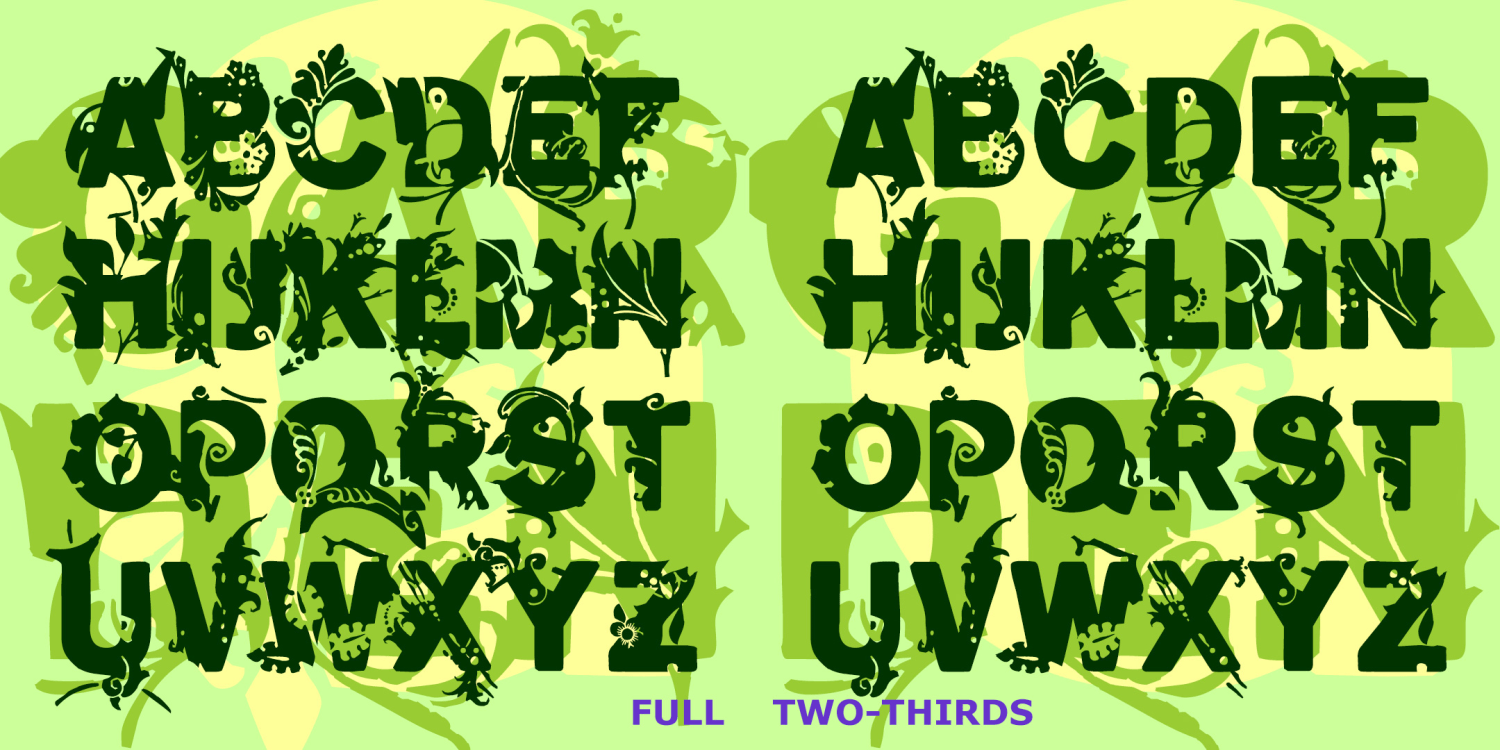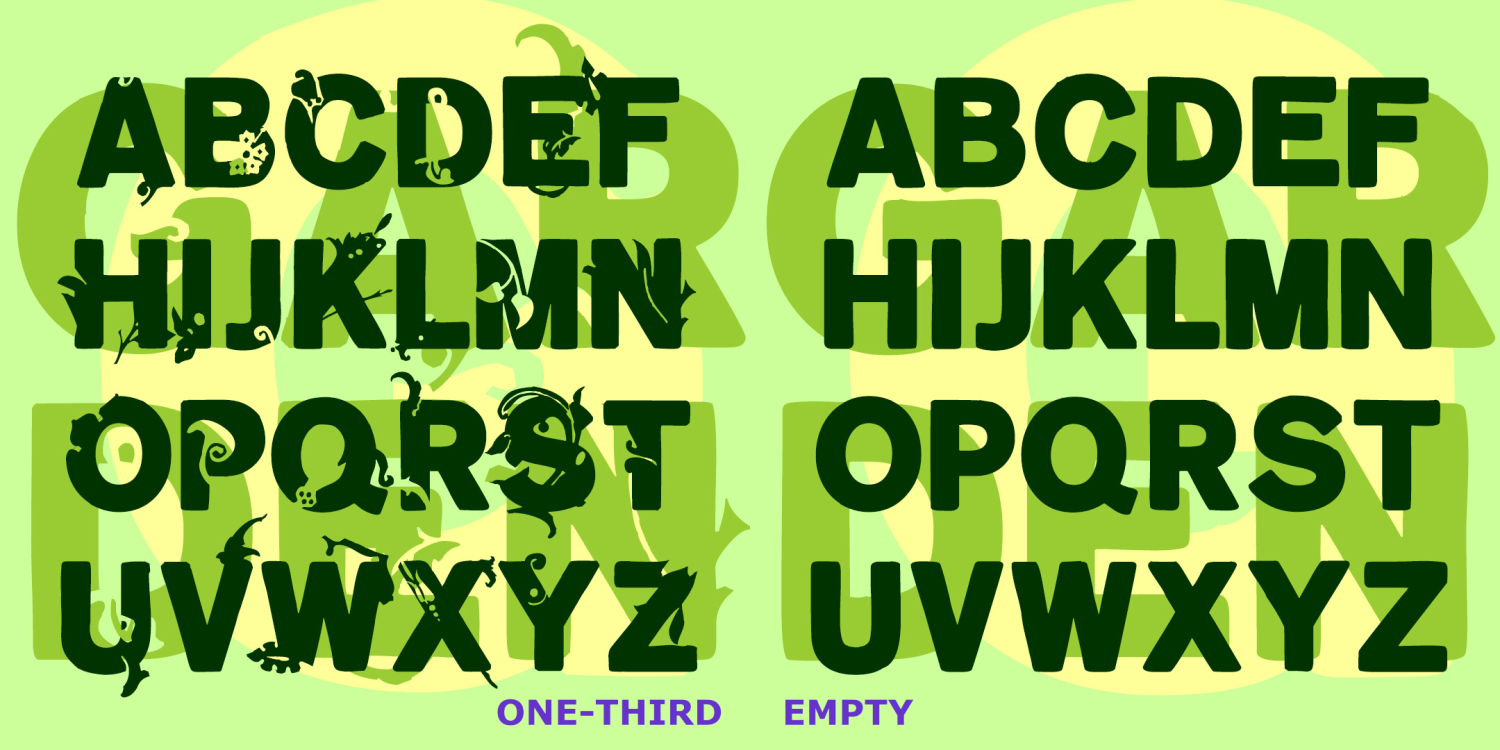
Garden
The GARDEN fonts began with a bold sans serif, then sprouted and grew! I've adapted plant motifs from a variety of historic sources and incorporated them into bold, wide grotesque letters in three degrees of vegetation: Full, Two-Thirds, and One-Third. Set also includes Empty (without sprouts) for cross-pollination. Use them together or separately for even more effects.